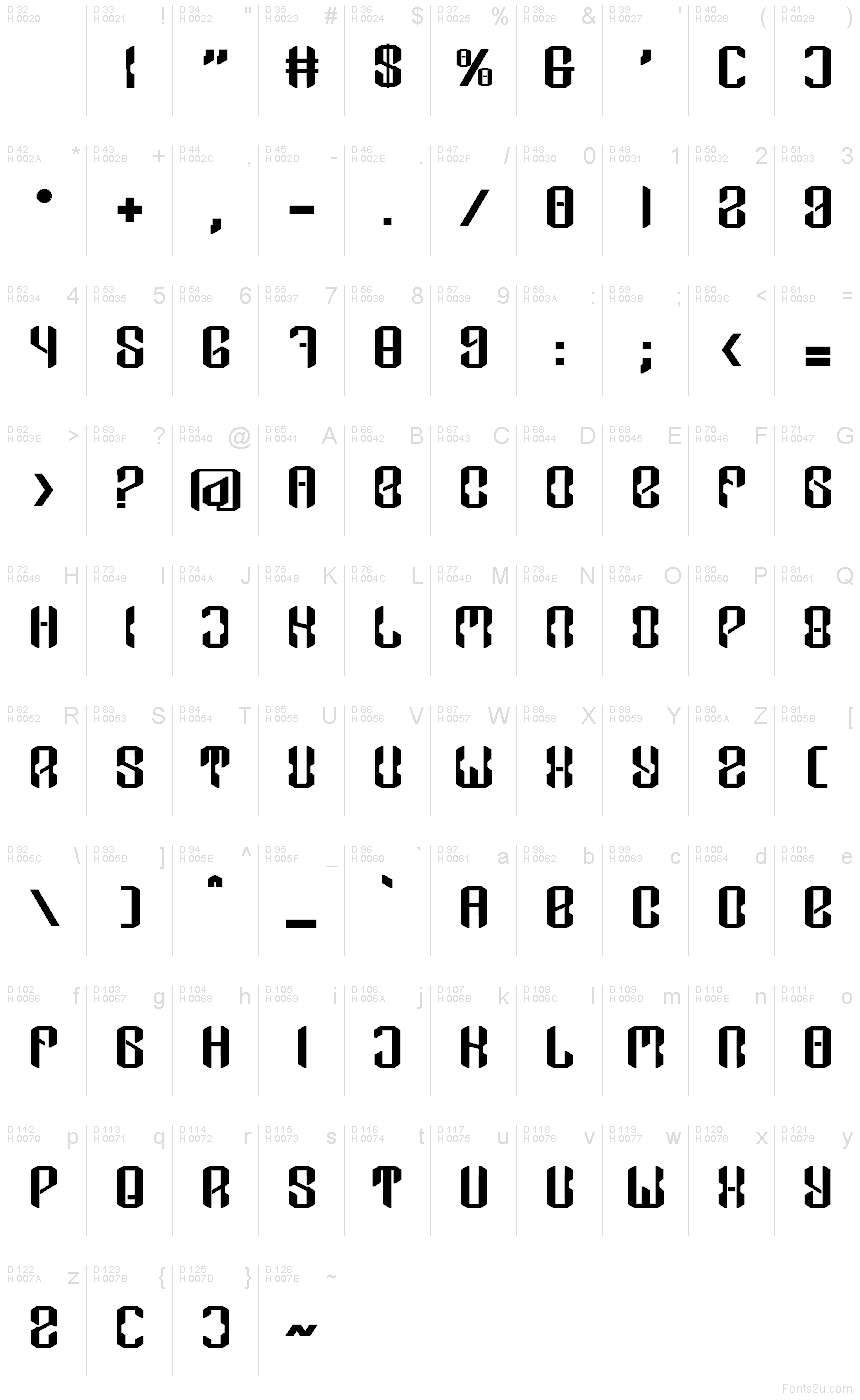
Meladiox font by Dhabee Studio is a free futuristic display typeface that fuses sci‑fi geometry with a bold, almost gothic edge. Heavy verticals, sharp notches, and angular curves lock together like armor plates, giving every word a strong, mechanized rhythm. The letters feel carved rather than drawn, with tight spacing that creates a solid, bar-like texture across the line.
Using Meladiox, you can push logos, esports branding, sci‑fi posters, album covers, tech headlines, and game interfaces into a darker, more industrial future. This free font shines in extra-large sizes where its chiseled details stay crisp and imposing; pair it with a clean, neutral sans serif for body text to keep layouts readable while letting Meladiox command attention.